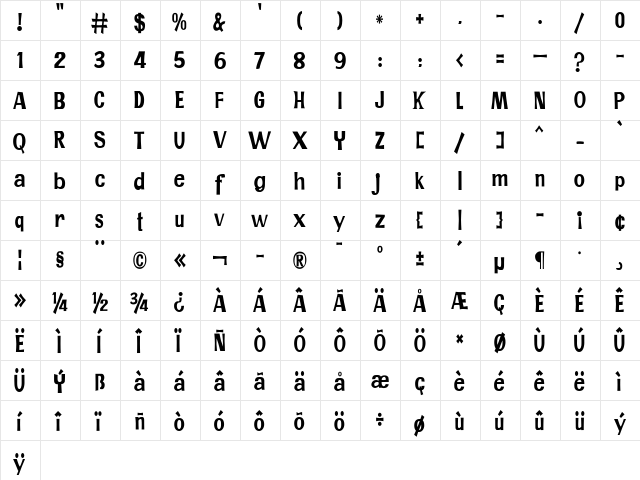
JMH PR COND Regular
Design Context for JMH PR COND Typeface
JMH PR COND offers clean, dependable letterforms without strong stylistic allegiance, making it a practical choice for designers who need flexibility. The condensed width makes it efficient for tight spaces without sacrificing legibility.